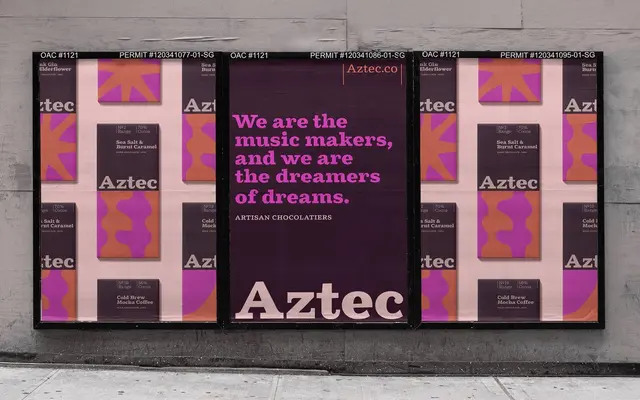
A seven-weight grotesque slab drawn from 19th-century Egyptian types, with ball terminals, ink traps and humanist stroke contrast giving it an animated quality.
Built across seven weights with matching italics, Cagney takes the Egyptian slab tradition as its starting point and applies deep cuts and ink traps alongside outsized ball terminals and off-axis angles. The result sits between historical slab warmth and modern-day legibility, with over 900 characters per style covering Western, Southern and Central European Latin. Fourteen number variants and a full set of OpenType alternates make it well-equipped for editorial and identity work.
Described explicitly as a modern grotesque slab with Egyptian-style origins from the 19th century, combining heavy and light stroke contrast with ball terminals typical of the grotesque slab genre.